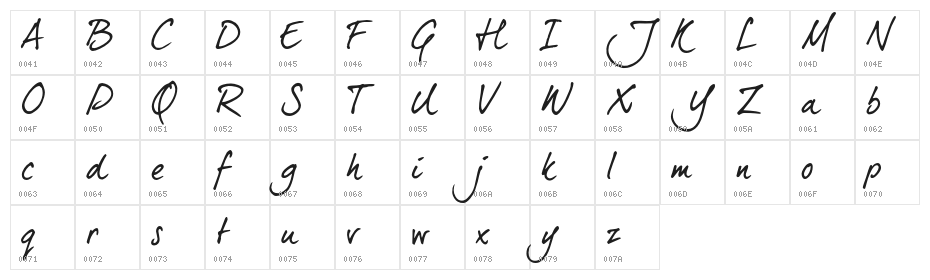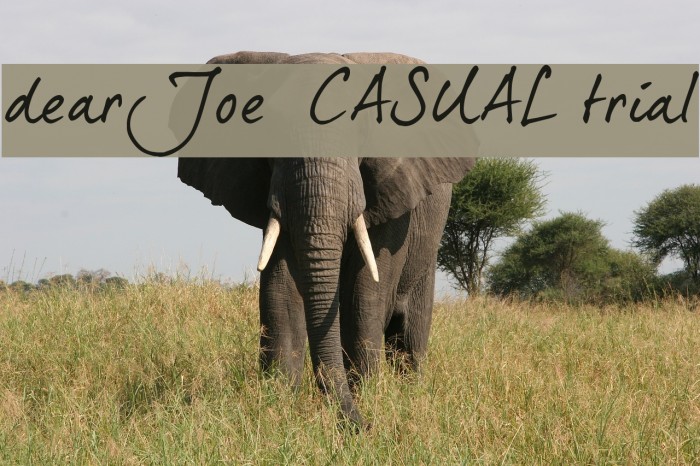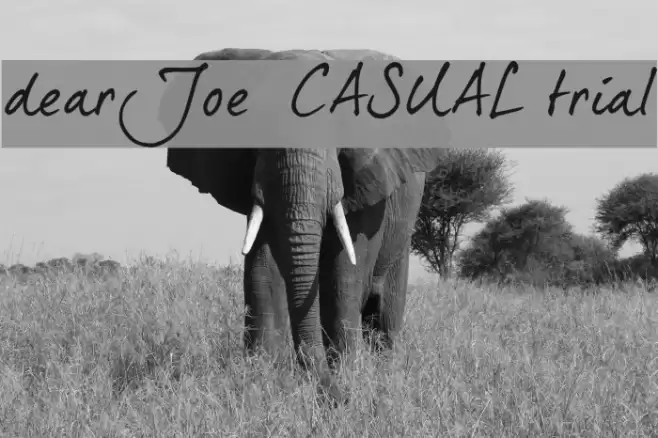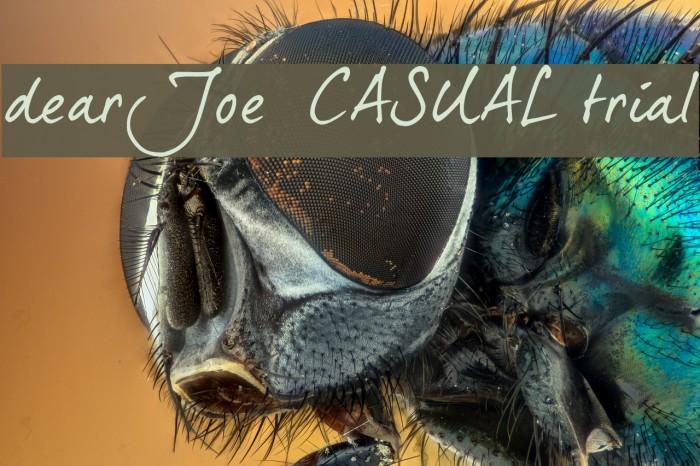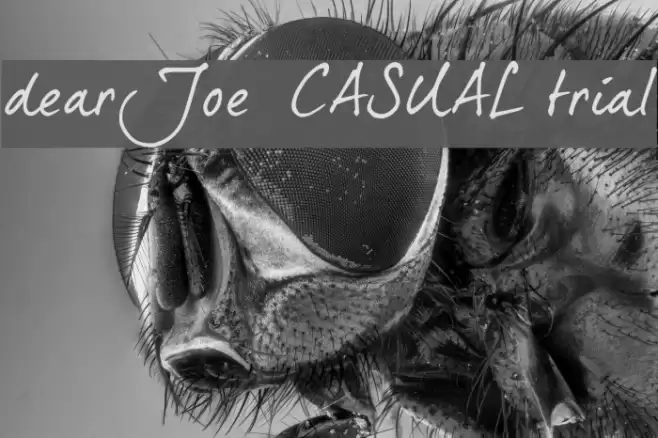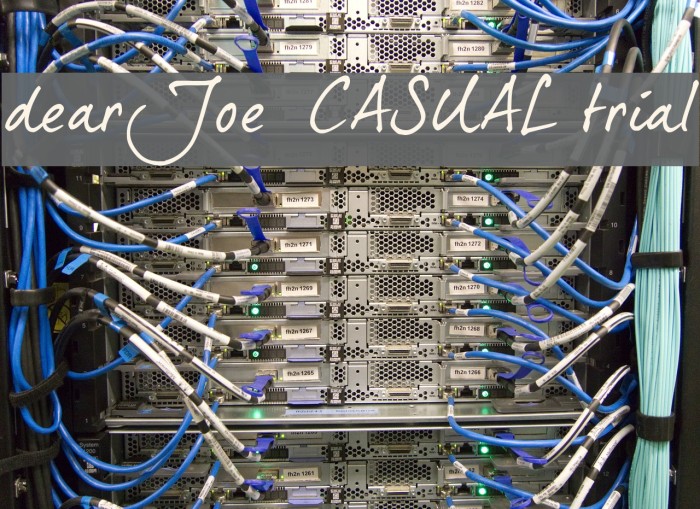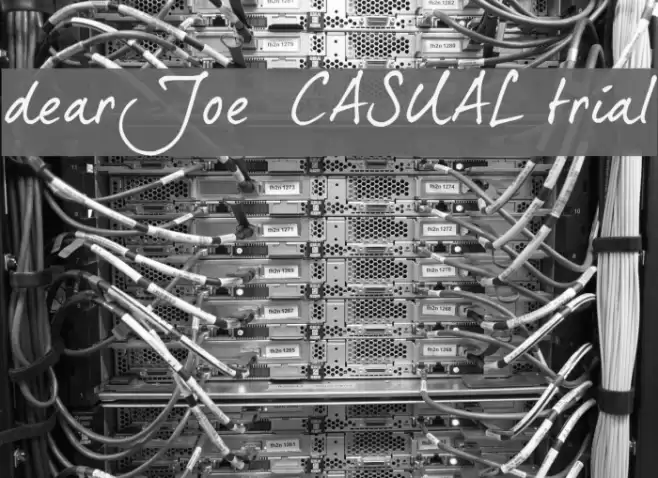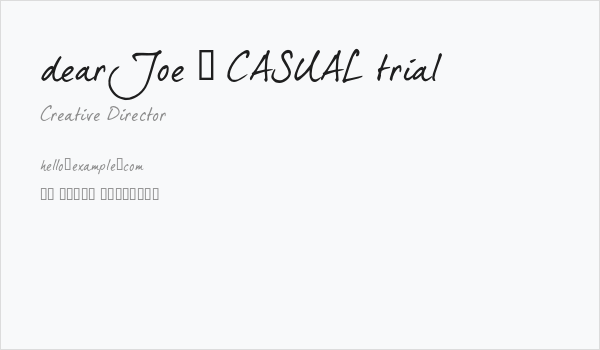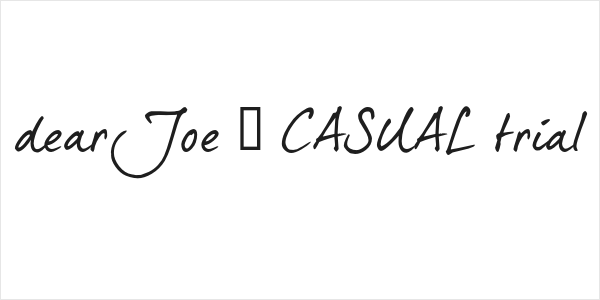
dearJoe 5 CASUAL trial Font
dearJoe 5 CASUAL trial Description
This font features a casual, handwritten style with a flowing, cursive appearance. The letters are slightly slanted, giving a relaxed and informal feel. The uppercase letters are bold and prominent, while the lowercase letters maintain a consistent flow, enhancing readability. The strokes are smooth and connected, mimicking natural handwriting. The font lacks special characters, focusing solely on the alphabet. Its overall design is ideal for projects that require a personal touch or a casual, friendly vibe.
| Proposed Projects | Ideal for personal invitations, greeting cards, casual branding, and social media graphics. |